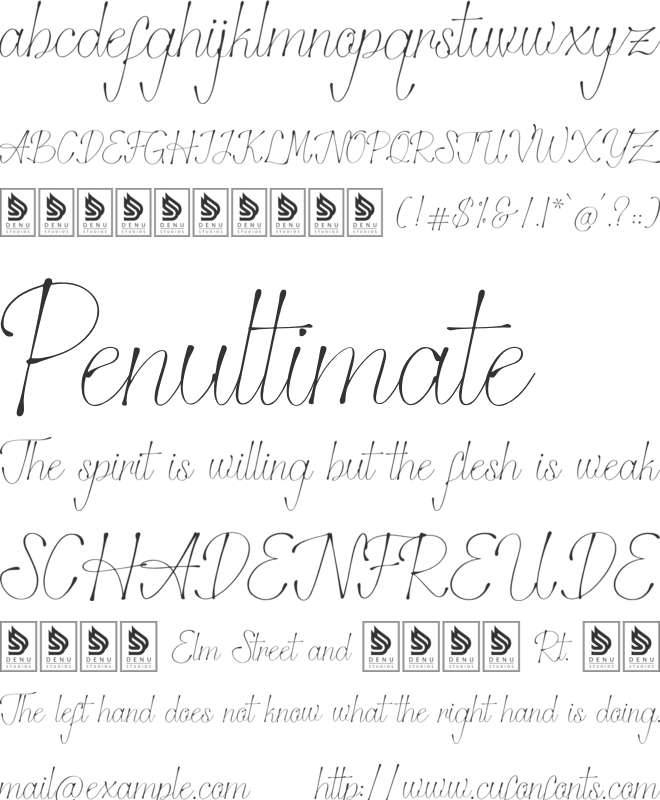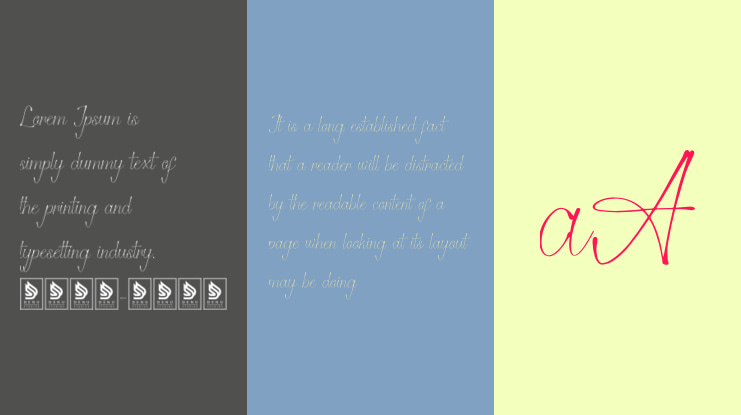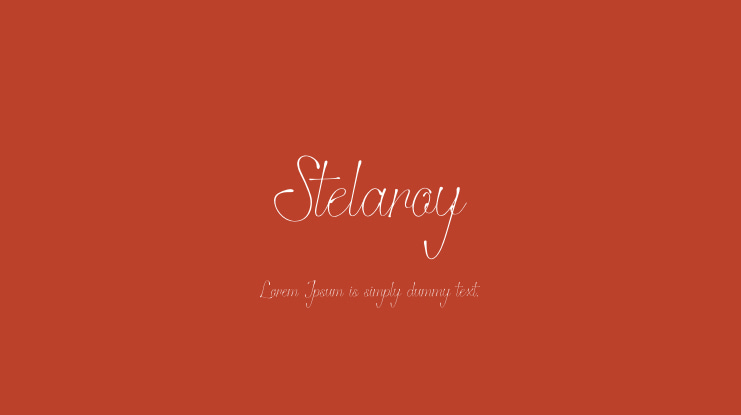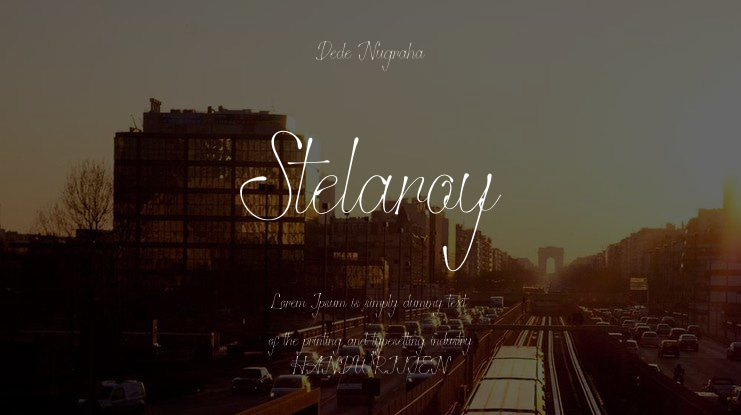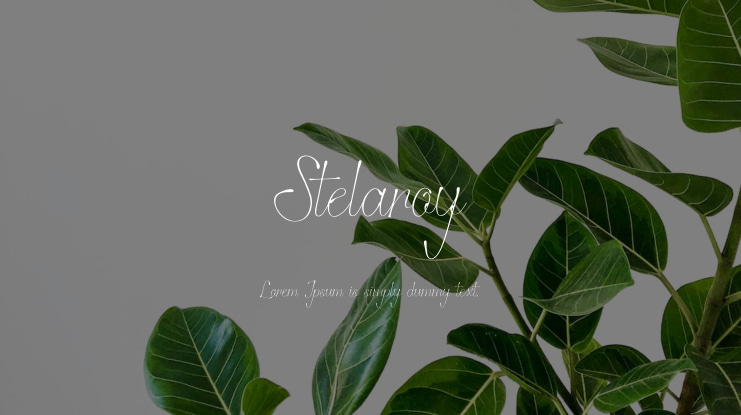
Stelaroy Font
Stelaroy | Stylish Signature is suitable for any project such as logos, branding projects, homeware designs, product packaging, mugs, quotes, posters, shopping bags, t-shirts, book covers, name cards, invitation cards, greeting cards, labels, photography, watermarks, special events, and all your other lovely projects that need a beautiful script taste.